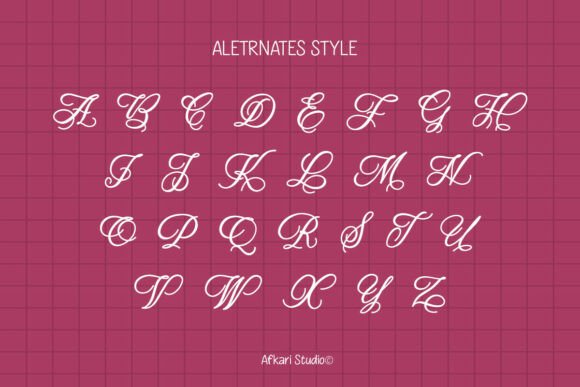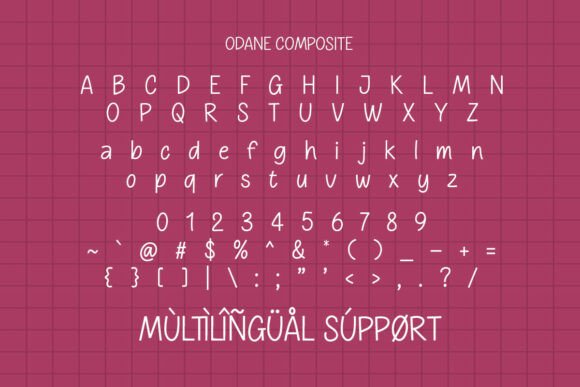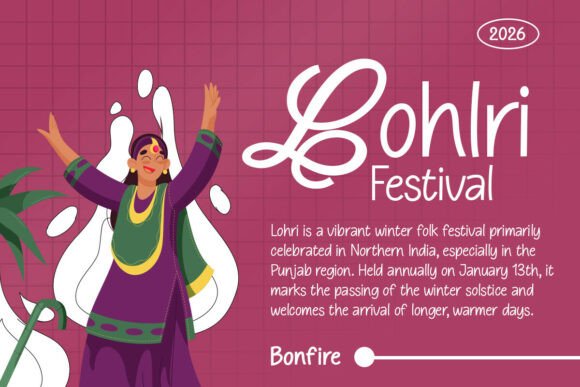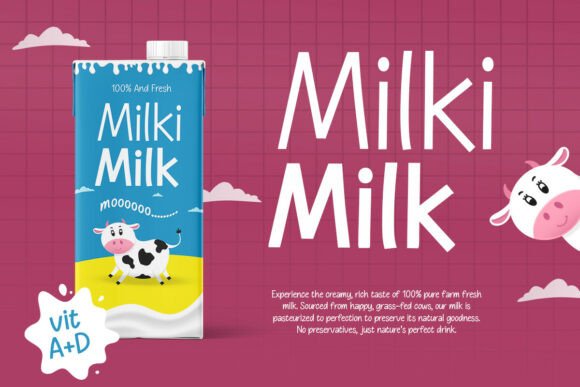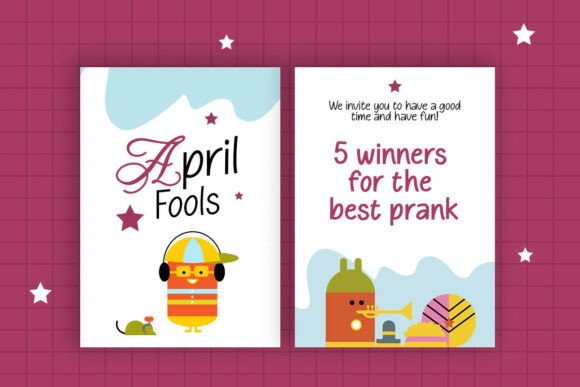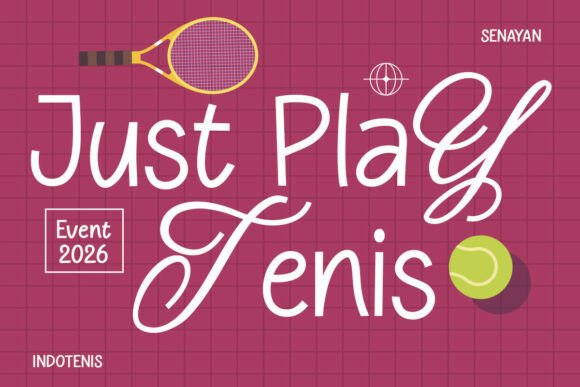
Introduction to Odane Font
There’s something magical about discovering a font that perfectly captures the essence of your creative vision. For designers, it’s the moment when all the pieces fall into place, and your message shines through with clarity and style. One such font that embodies this magic is the Odane Font – a modern, stylish handwritten font designed to bring a natural, elegant, and confident handwritten feel into your designs.
Whether you’re working on a high-quality branding project or a free download design resource, the Odane Font is an invaluable asset to have in your creative arsenal. Its smooth strokes and balanced letterforms make it perfect for modern branding and lifestyle visuals, while its transparent background allows it to seamlessly integrate with any design.
Key Features of Odane Font
- Large character set with a wide range of glyphs, making it suitable for multilingual projects
- Unique, modern design aesthetic that can add a touch of sophistication to any creative project
Honest Review: Odane Font
I recently came across the Odane Font while searching for a free download to use in a creative project. As a designer, I was excited to see what this font had to offer. The Odane Font is a high-quality design resource that boasts a beautiful, elegant style.
One of the things that stood out to me was the transparent background option, which makes it easy to customize and combine with other design elements. This feature is particularly useful when working on a project that requires a lot of visual cohesion.
- ✨ Elegant and sophisticated design style
- ✨ Transparent background option for easy customization
- ⚠️ Limited font weight options, which may not be suitable for all design projects
- ⚠️ Some users may find the font too ornate or overbearing
Overall, I’m impressed with the Odane Font and would recommend it to designers who are looking for a high-quality, elegant font to use in their creative projects. While it may not be perfect, it’s a great addition to any design resource library.
Common Use Cases for Odane Font
The Odane Font is suitable for a variety of creative projects, including logos, branding materials, social media graphics, and print materials. Its unique design and high-quality features make it an excellent choice for designers looking to add a touch of elegance to their work.